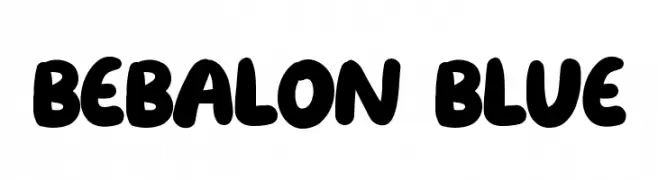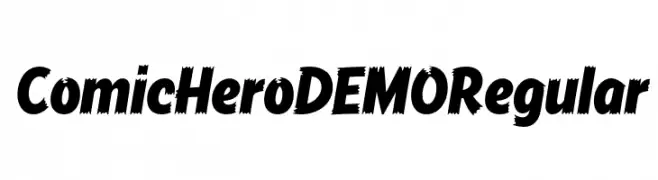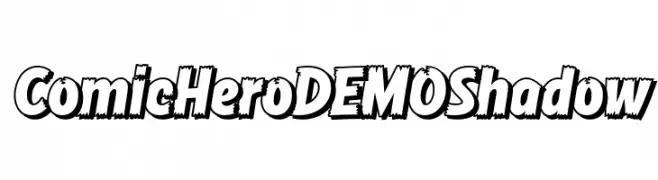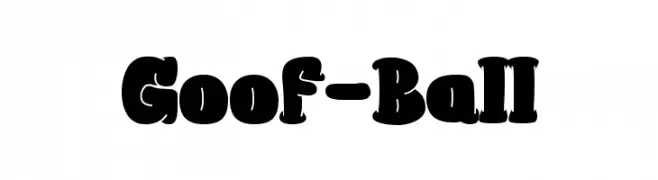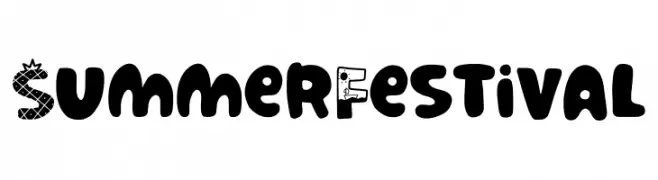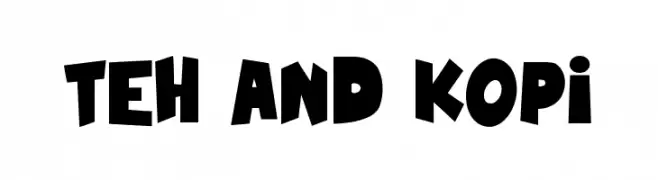
A bold, brush-style font with dynamic and energetic strokes.
A bold, angular font with a futuristic and dynamic design, perfect for conveying speed and motion.
A bold, italicized font with dynamic slashes, conveying speed and energy.
A bold, playful font with thick, rounded characters and a whimsical style.
A bold, playful font with chunky, whimsical characters.
A playful, decorative font with whimsical summer-themed designs in each letter.
A bold, dynamic font with a playful and energetic style.
A playful, balloon-like font with bold, rounded characters.
A bold, comic-inspired font with jagged, dynamic letterforms.
A bold, comic-inspired font with a shadow effect for a dynamic, playful look.